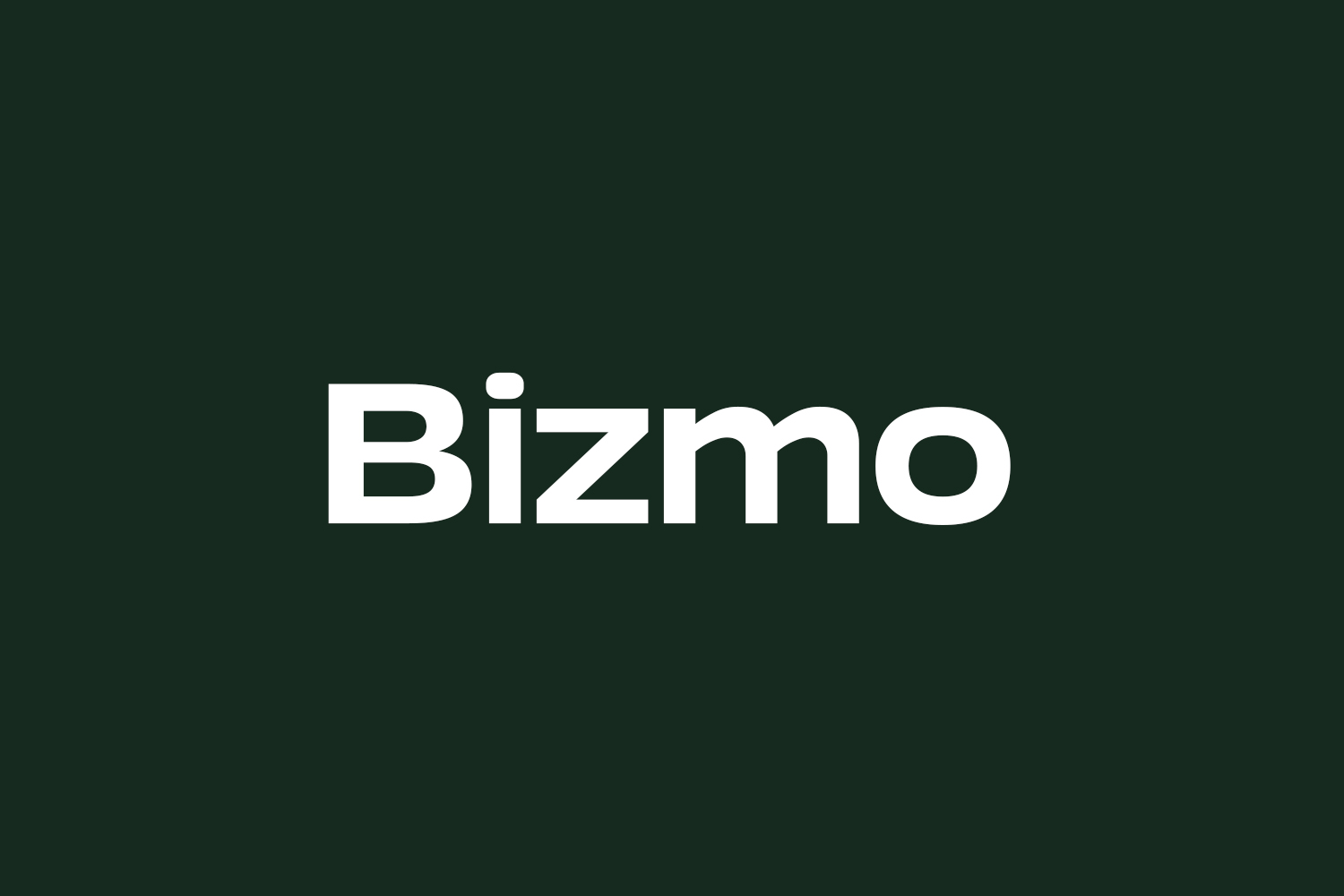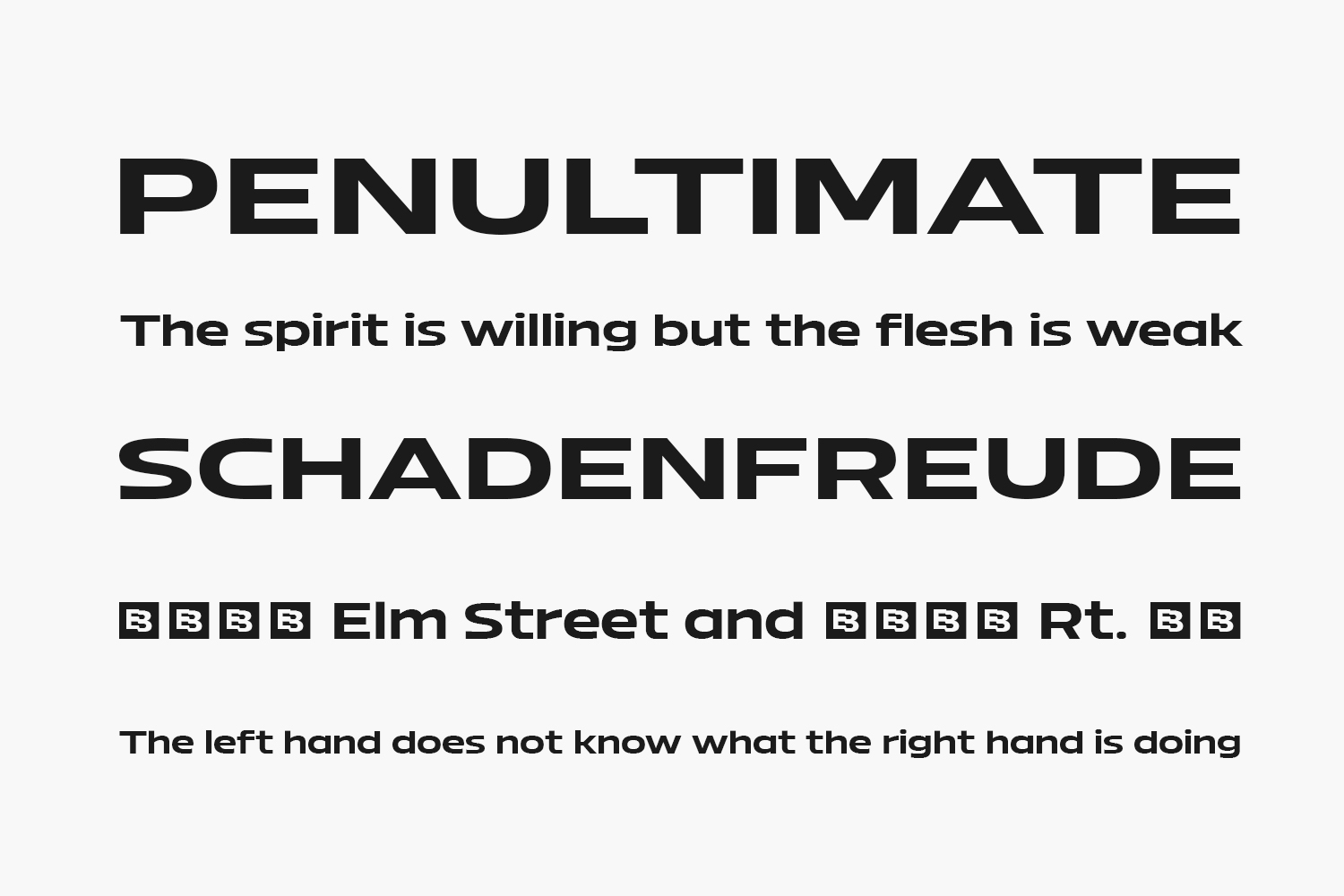
Introducing Bizmo Free Font – a sleek and modern sans-serif typeface that exudes sophistication and confidence. Its clean lines and geometric shapes create a sense of order and simplicity, while its subtle curves add a touch of elegance and personality.
Bizmo is a versatile font that can be used for a variety of design projects, from branding and advertising to editorial and digital design. Its readability and legibility make it a popular choice for both print and digital media, while its unique character and style set it apart from other sans-serif fonts. Bizmo Free Font is free for personal use only. Please purchase the full version for commercial use.